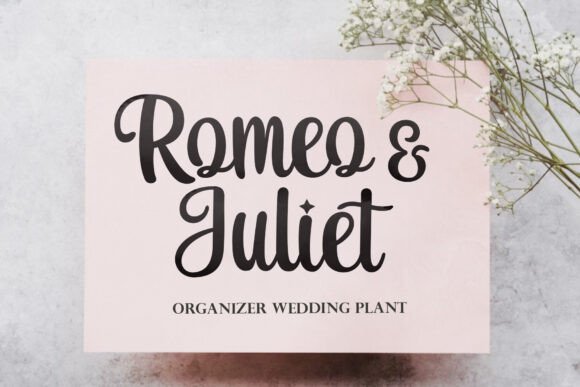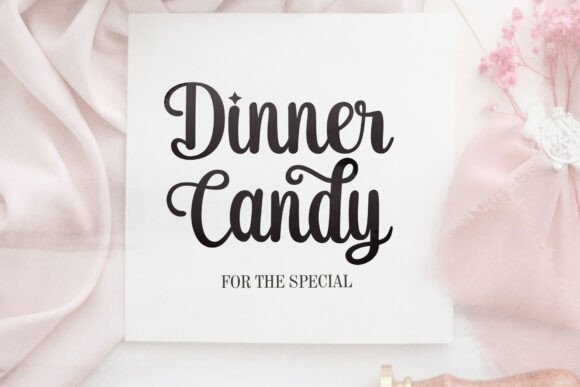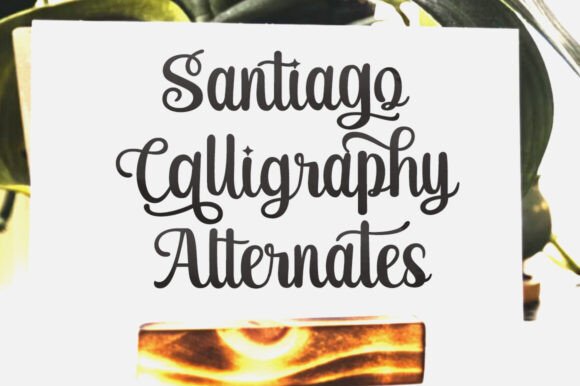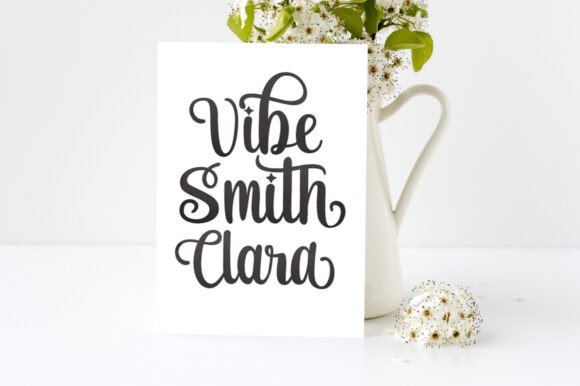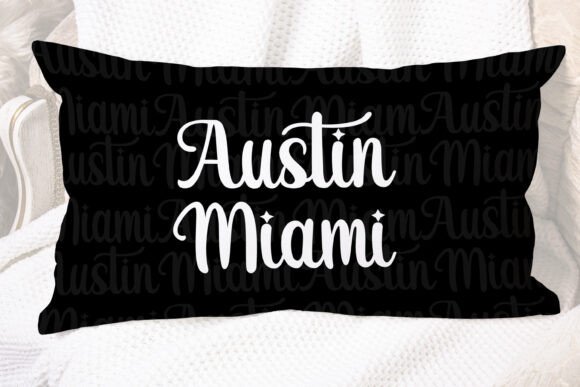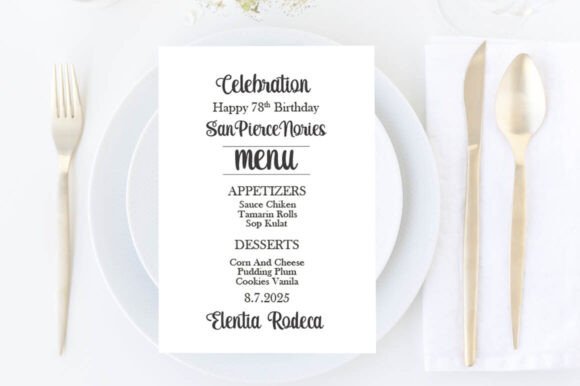
The Bestie Sweet Font: A Timeless Script for Creative Projects
Have you ever been in the middle of a design project, and suddenly, you’re stuck on finding the perfect font? I certainly have! It was during one of those moments that I stumbled upon the Bestie Sweet font, an iconic script font that has become a staple in my design toolkit. In this article, I’ll share my experience with Bestie Sweet, its features, and how to make the most of it in your creative projects.
A Personal Encounter with Bestie Sweet
I recall working on a wedding invitation design project, and my client requested a font that exuded elegance and sophistication. After hours of searching, I stumbled upon Bestie Sweet, and it instantly caught my attention. The font’s relaxed yet modern script style seemed to perfectly capture the essence of a luxurious wedding celebration. I was impressed by its versatility and the richness of its OpenType features, which allowed me to experiment with various styling options.
An Honest Review of Bestie Sweet
- ✨ Elegant and sophisticated script style
- ✅ Modern elements that make it versatile for various design projects
- 💫 Rich OpenType features for creative experimentation
- 👍 Easy to use and navigate, even for beginners
While Bestie Sweet is an excellent font, there are a few minor quirks to be aware of:
- ⚠️ Some users may find the font’s script style too ornate for certain projects
- 🤔 Limited availability of bold or heavy font weights
Bestie Sweet was created with the intention of crafting a modern script font that still maintains a classic, elegant feel. The designer aimed to create a font that would be suitable for a wide range of design projects, from wedding media to book covers and branding. With its rich OpenType features and versatile style, Bestie Sweet has become a popular choice among designers and creative hobbyists.
Q: What type of projects is Bestie Sweet suitable for?
A: Bestie Sweet is perfect for designs that require a classic, formal, or luxurious style, such as wedding media, book covers, greeting cards, logos, branding, business cards, and certificates.
Q: Is Bestie Sweet easy to read?
A: Bestie Sweet is a script font, and while it’s elegant and beautiful, it may not be the most readable font for body text. It’s best used for headings, titles, or short paragraphs.